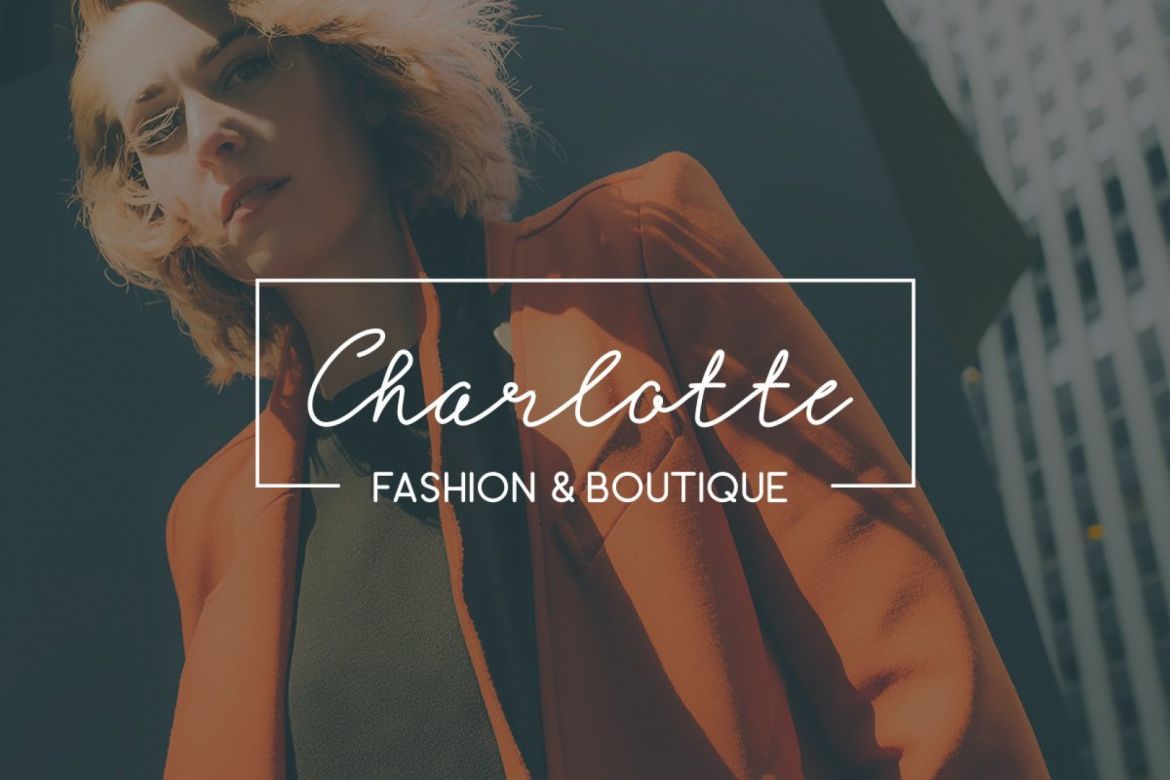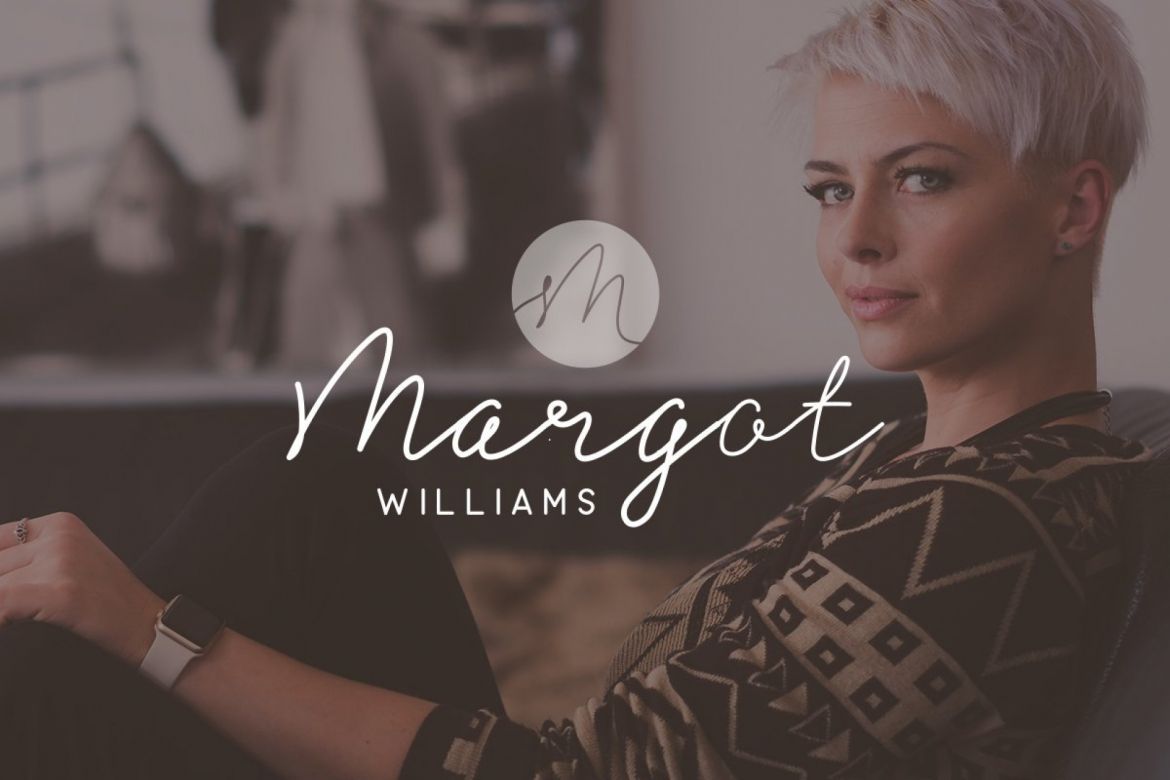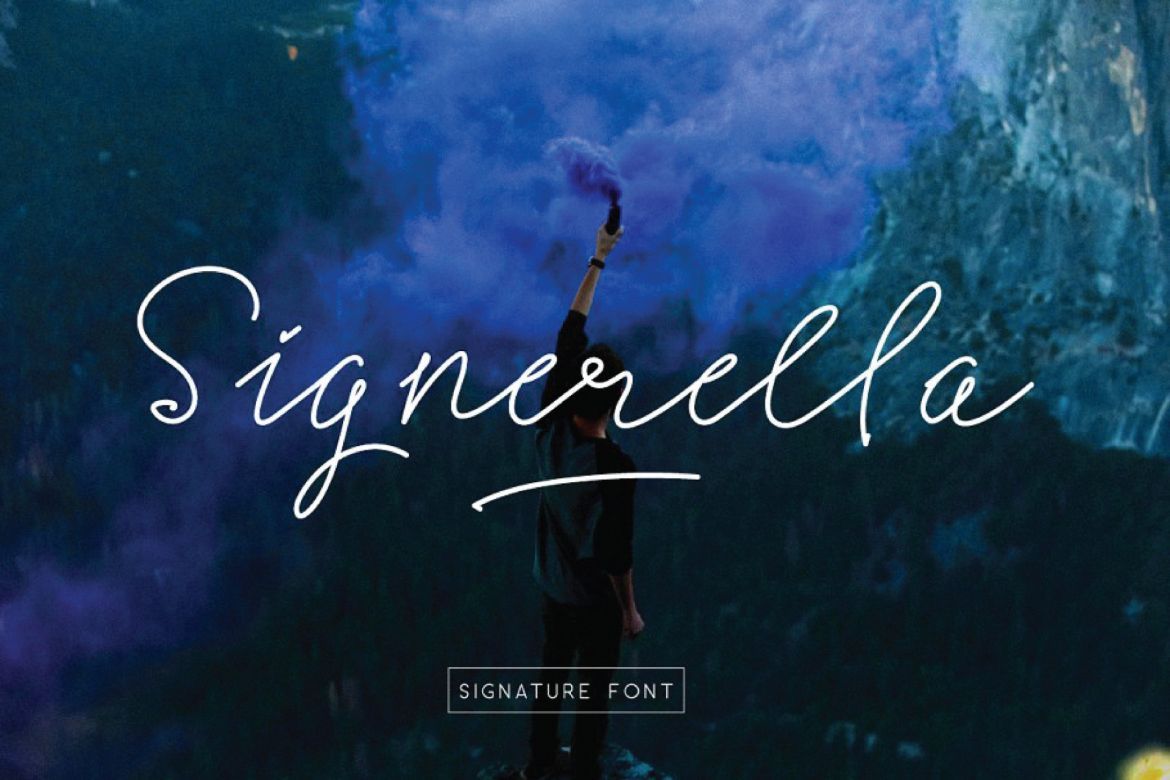
Signerella Font Duo
• it also includes the signerella sans font type as a complementary font that closely matches the signerella script font.
• this typeface has many features including symbols & punctuation, alternative styles, swashes, catchwords, doodle icons, also supports multi-lingual characters.